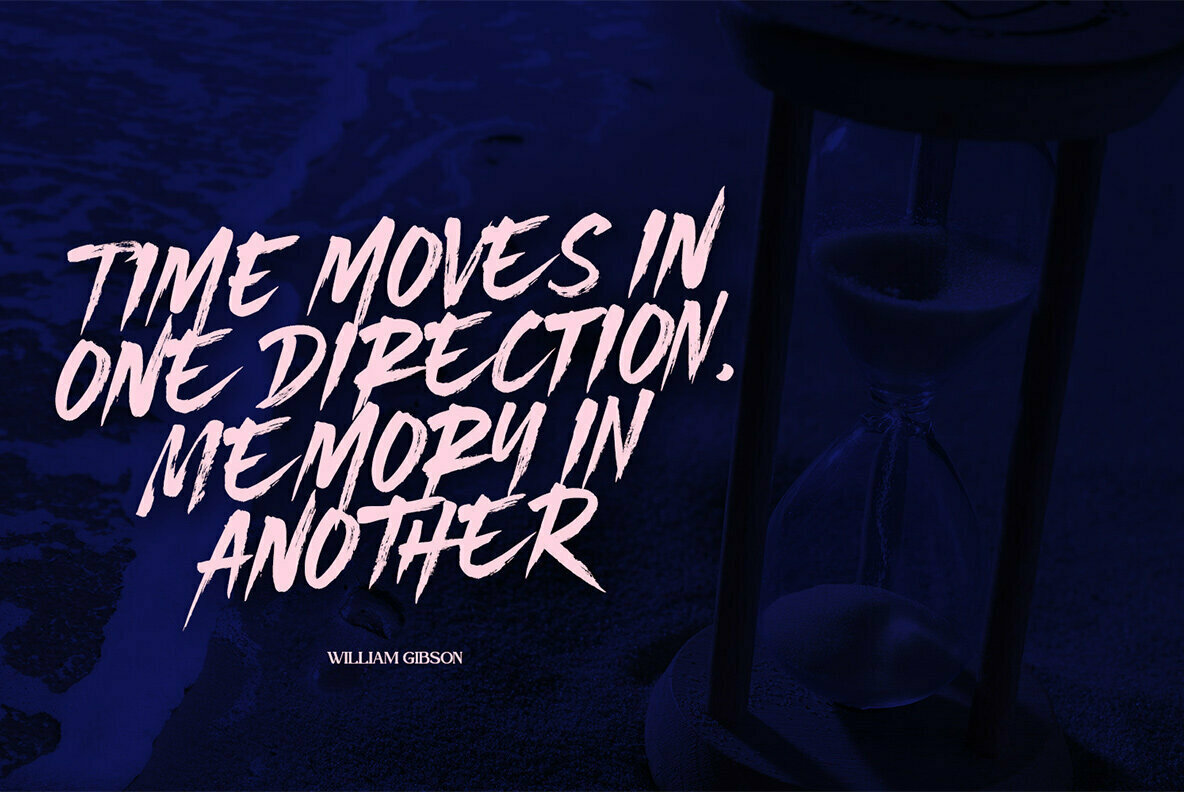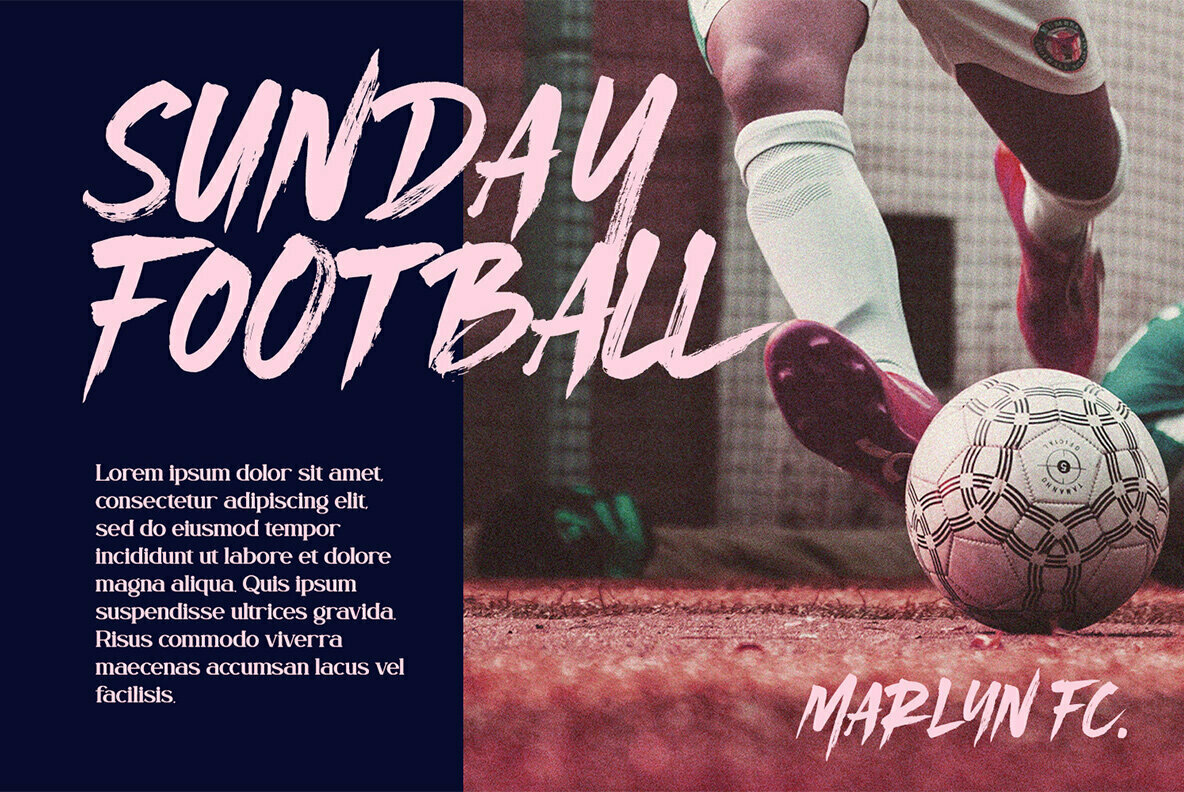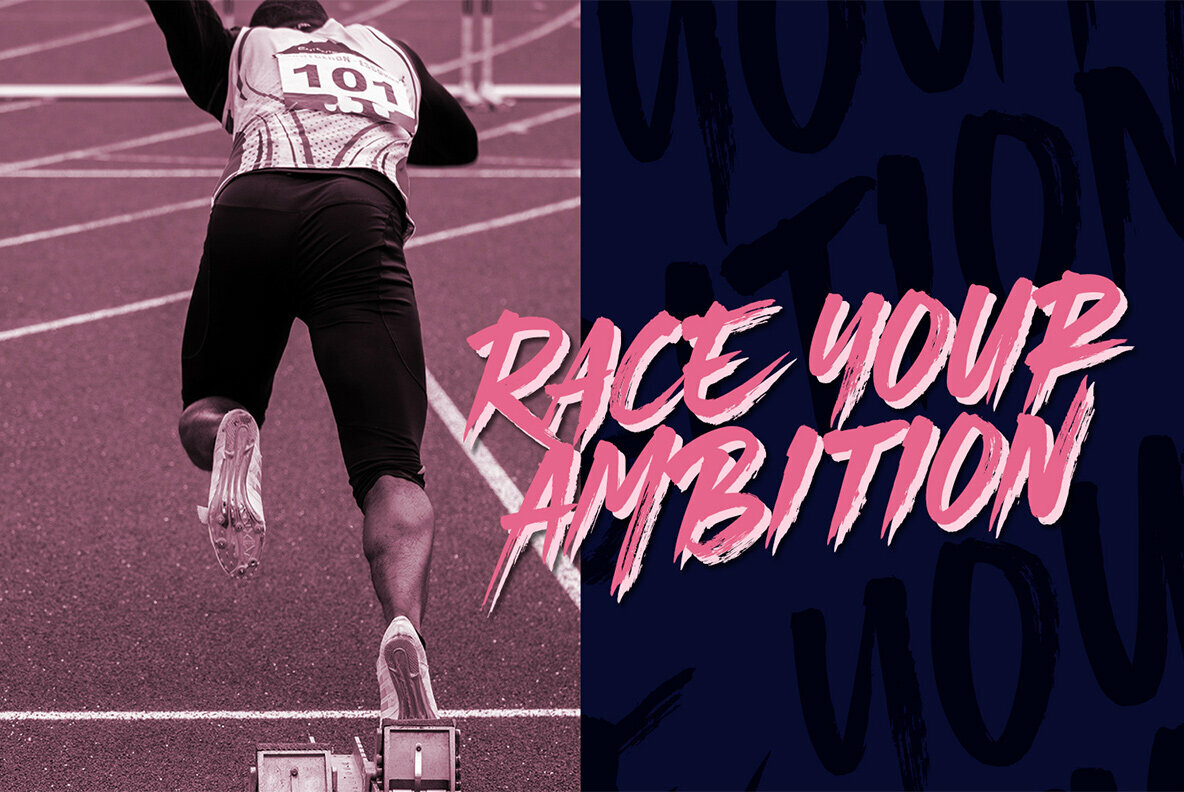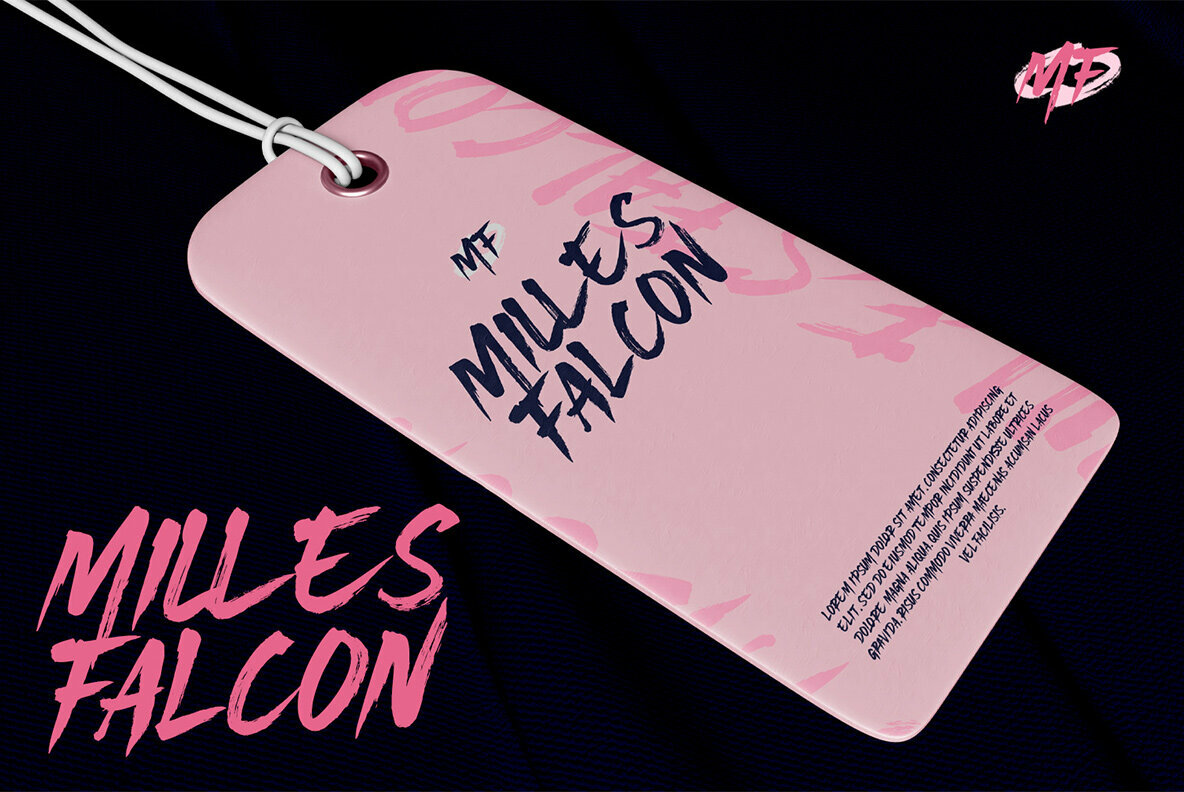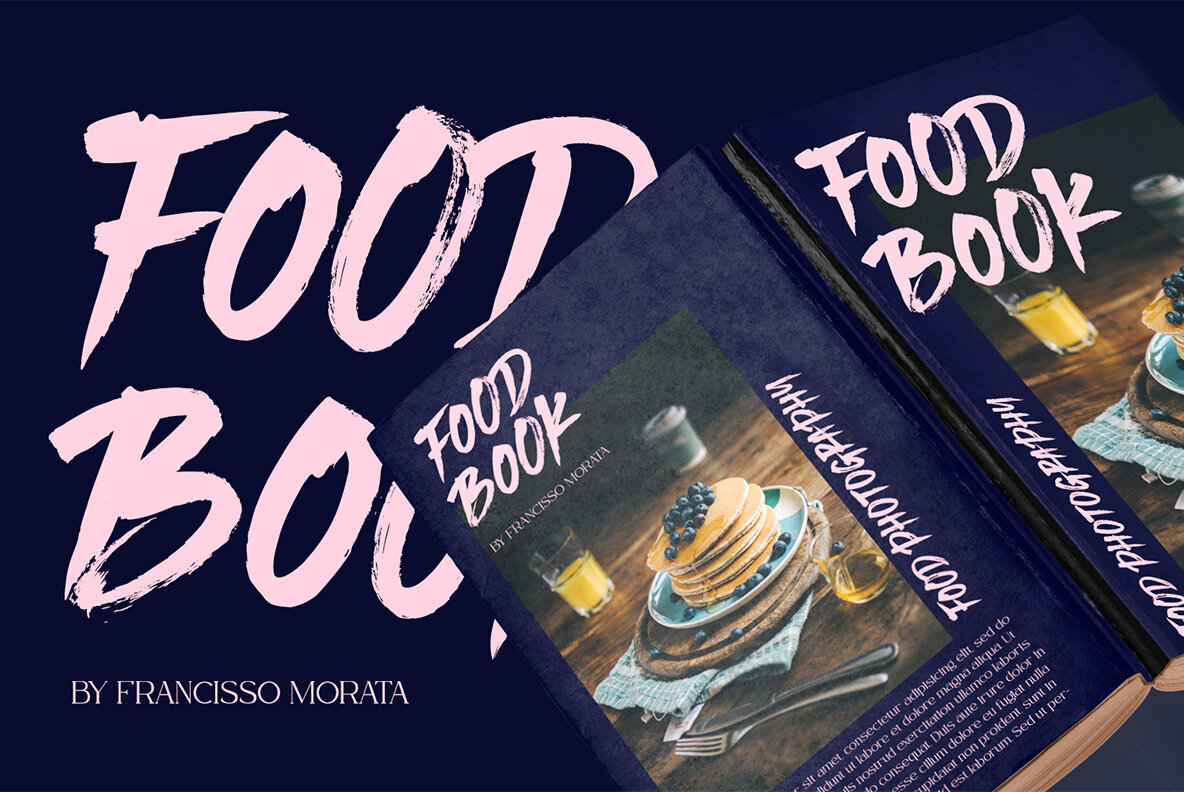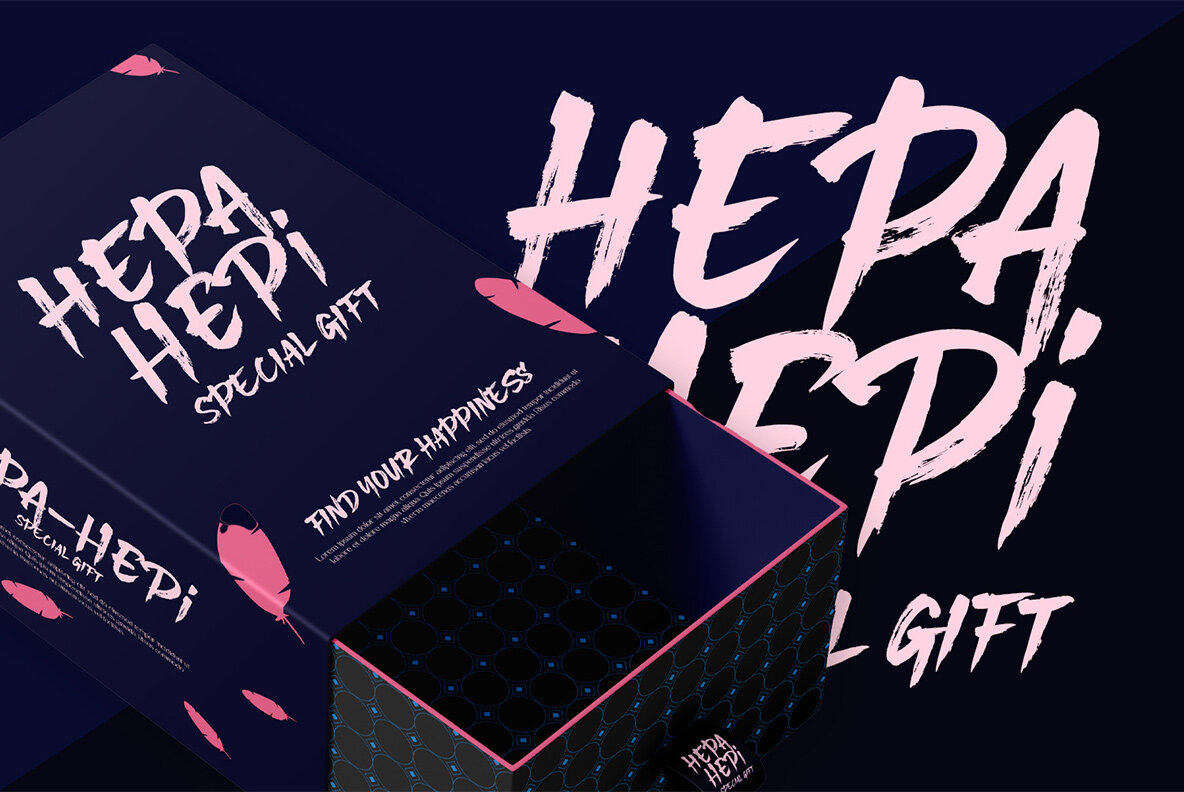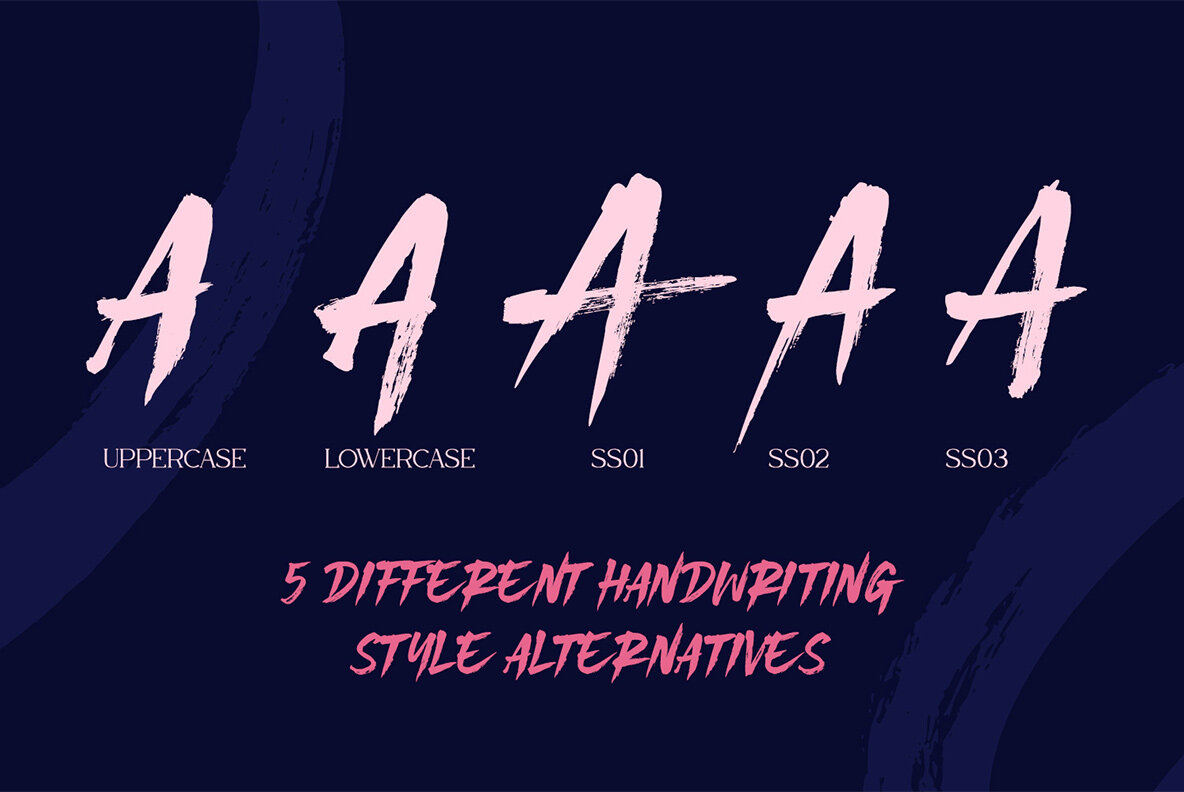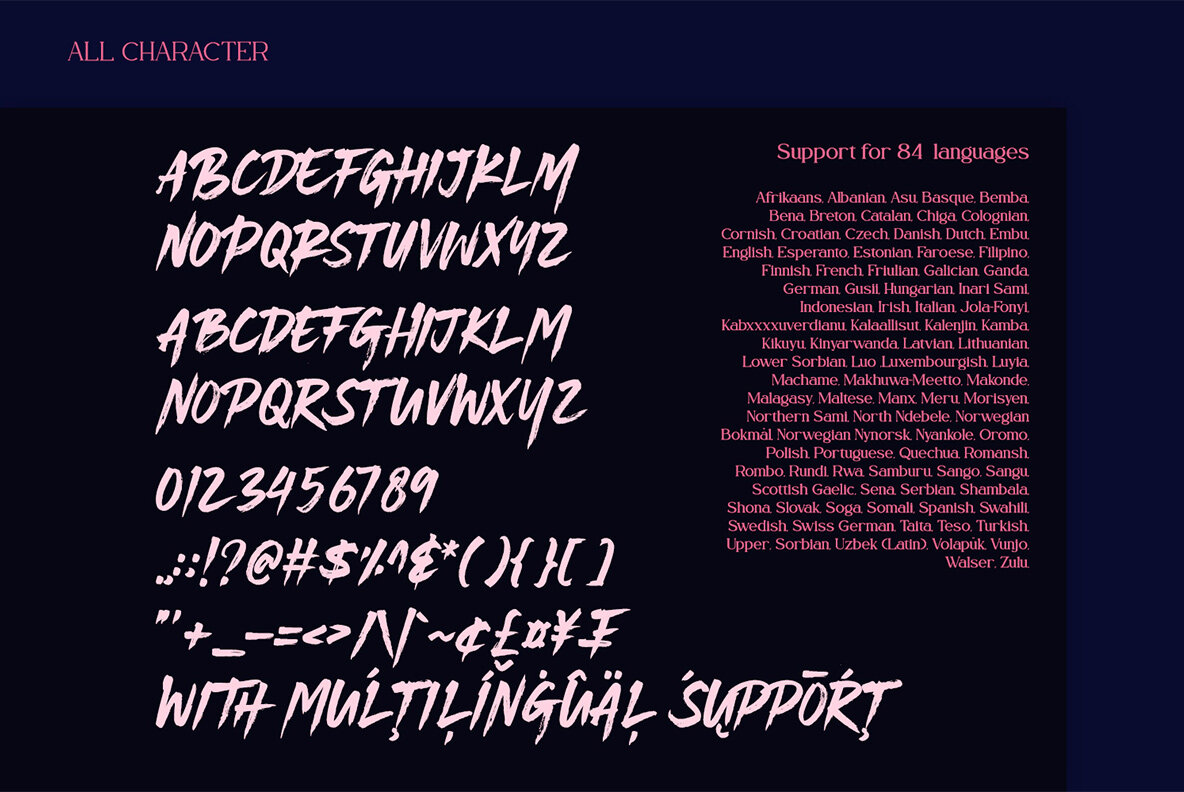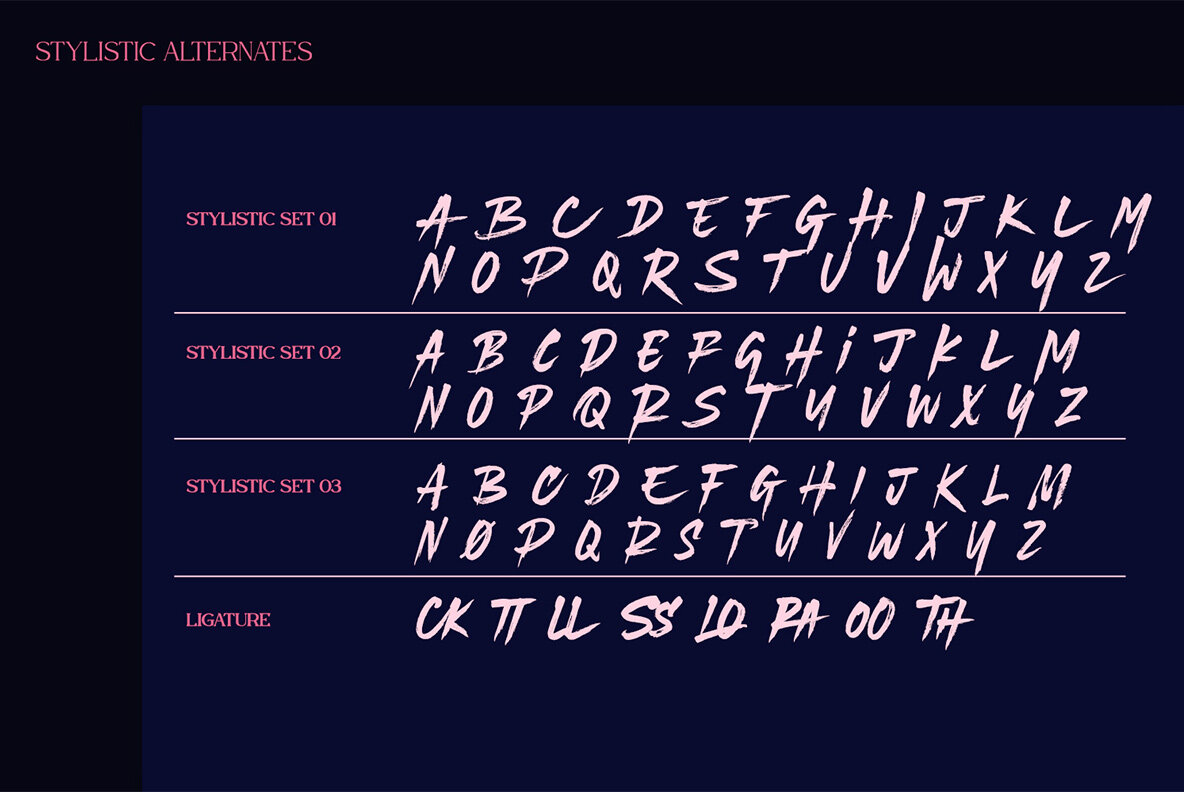
Bigruns Brush Font
Bigruns Brush
Bigruns Brush offers a captivating blend of modern style and legibility with its striking uppercase design. As a display font, it is perfectly paired with a handcrafted script brush, ensuring each letter captures attention effortlessly, making it ideal for diverse projects and branding solutions. It injects a modern flair into titles, poster designs, branding, quotes, and logos. The inclusion of multilingual support ensures that your visual storytelling resonates across different languages, facilitating a global reach.Bigruns Brush: A Harmonious Display Typeface